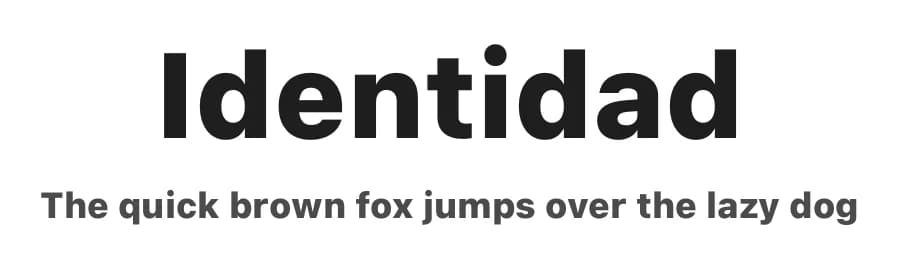
About Identidad Font
Identidad is a sans-serif type family designed to offer support for most languages in the Latin script.
Identidad has nine weights, each with corresponding italics, 710 glyphs, and 19 OpenType features (aalt, calt, case, ccmp, dlig, dnom, frac, liga, locl, numr, ordn, pnum, sinf, ss01, ss02, subs, sups, tnum, zero).
Identidad supports 377 languages and covers 3 Unicode blocks (Basic Latin, Latin-1 Supplement, Latin Extended-A).
| Designer | Ruls Do Paolo |
- Slashed zero
Identidad Font is a versatile sans-serif font that works for both headings and body text. Pair it with a contrasting serif or slab serif font to add visual interest and a clear distinction between titles and body copy.
Identidad Font